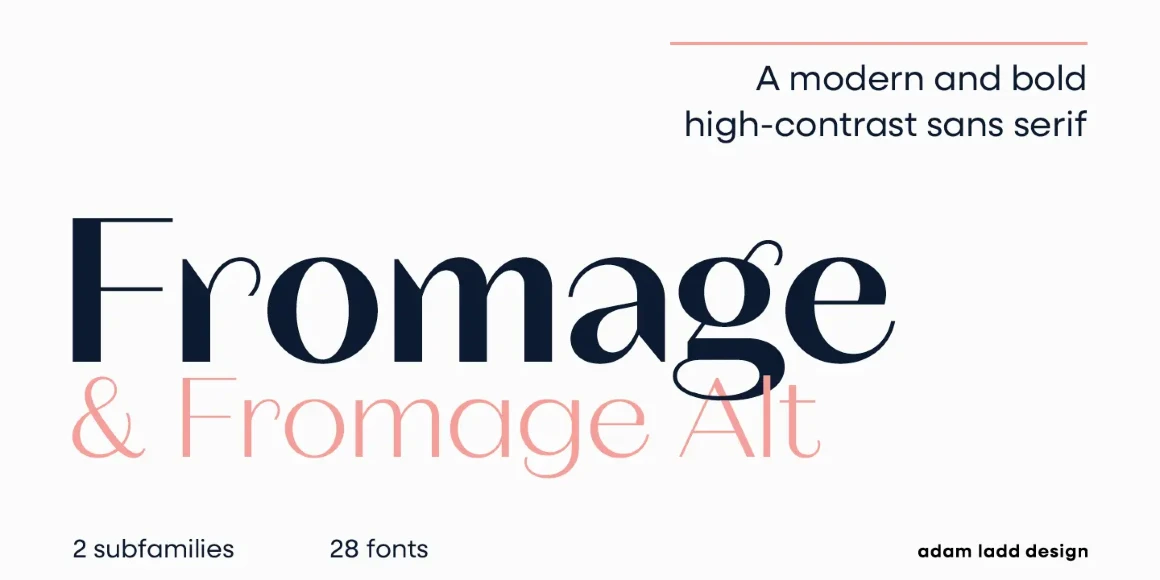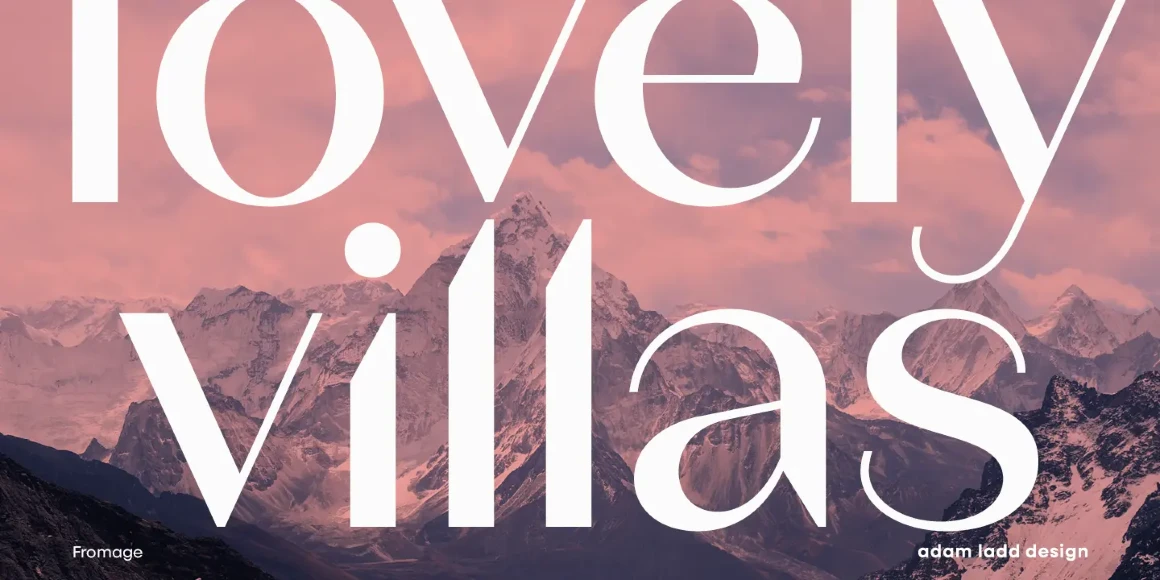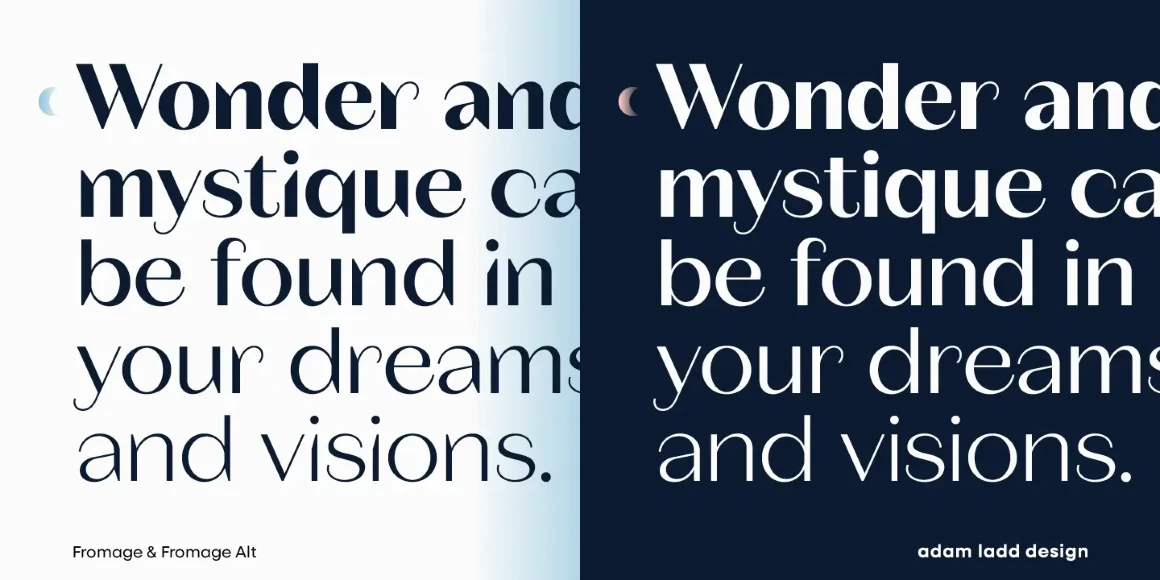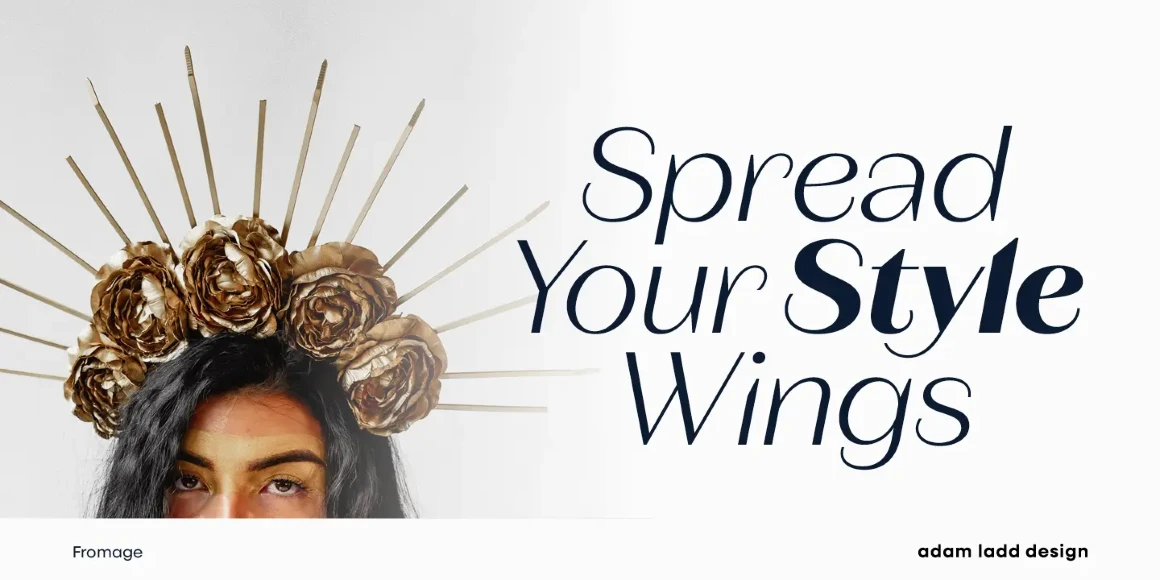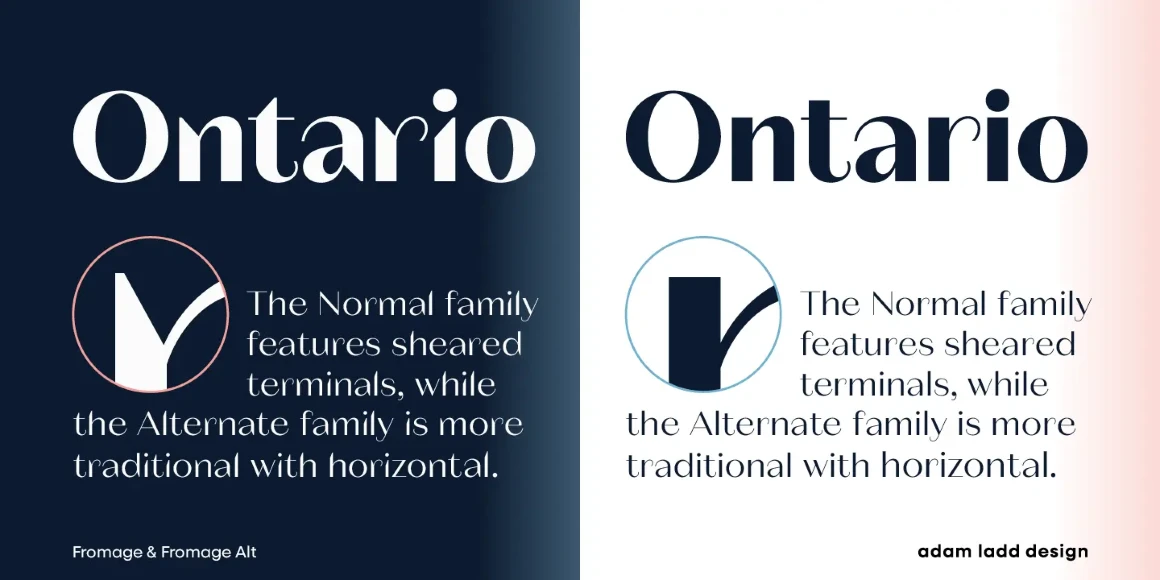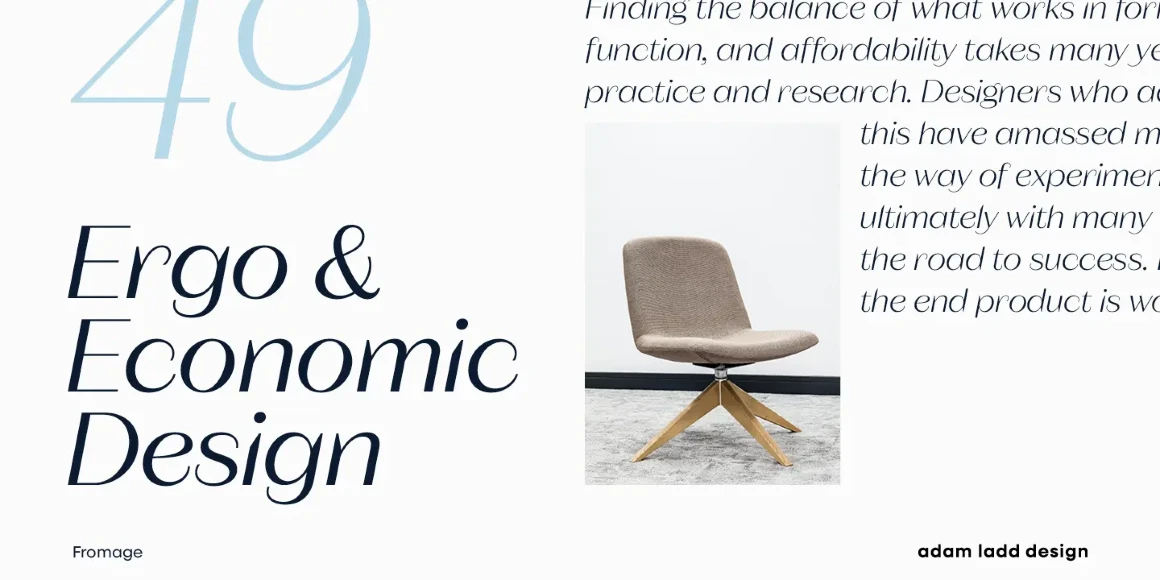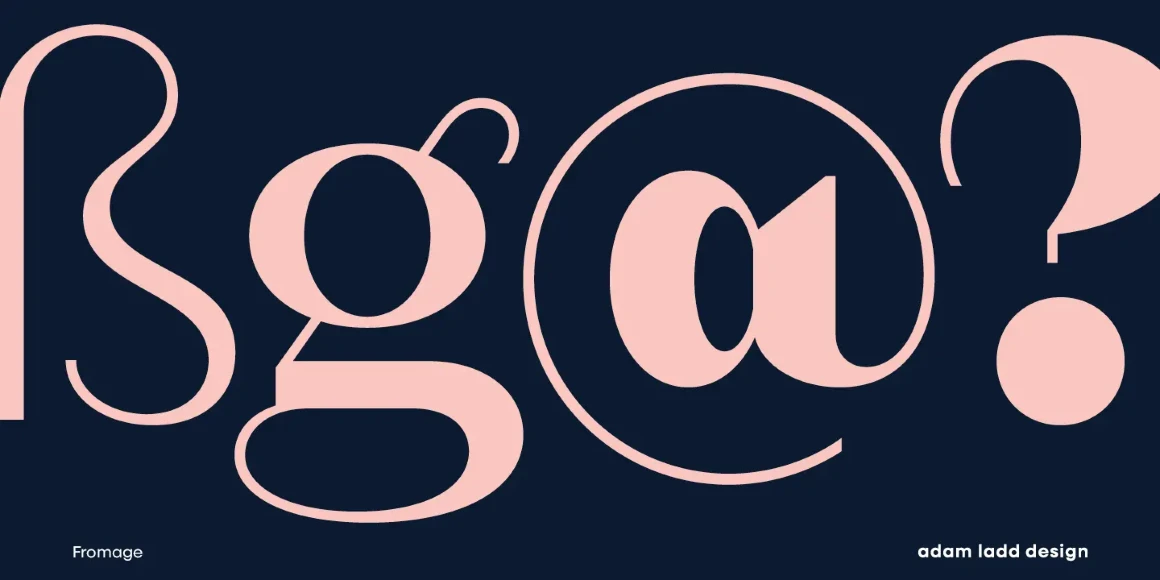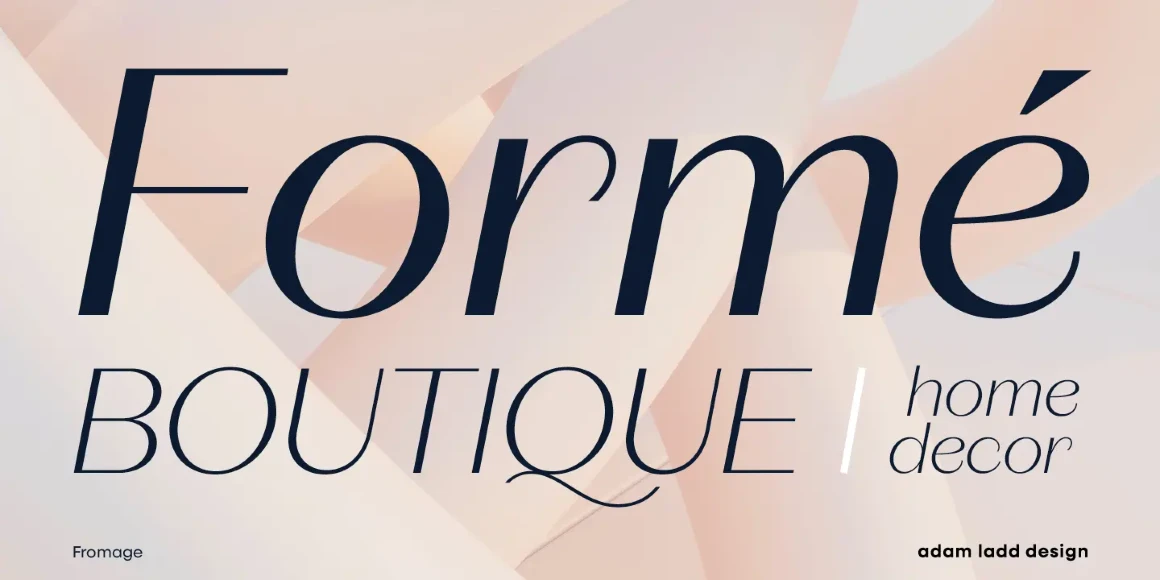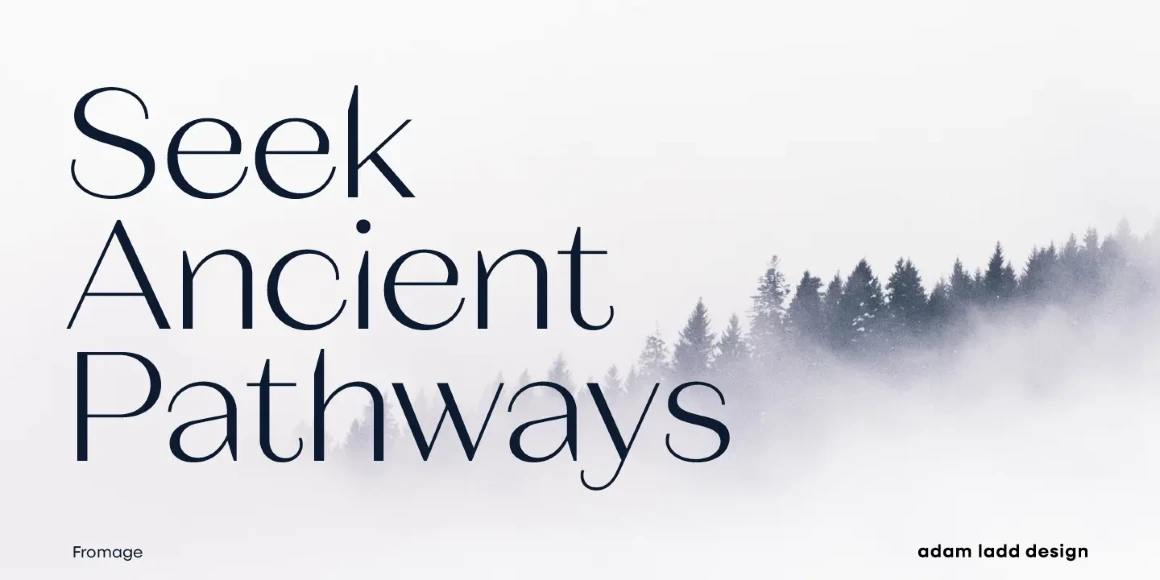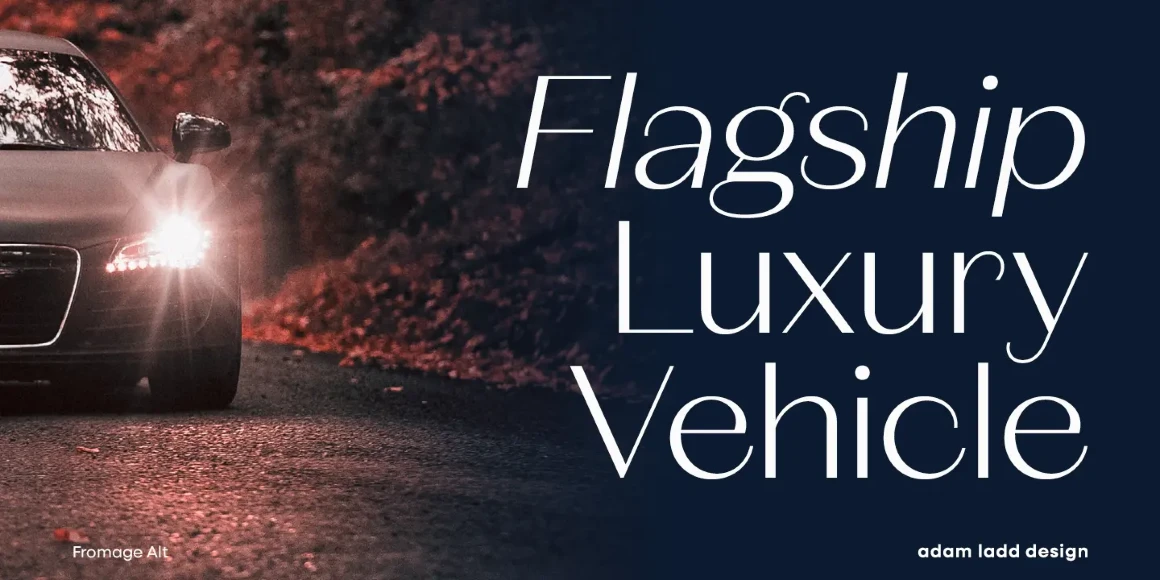
Fromage Alt
From Adam Ladd Design
Fromage and Fromage Alt are modern, high-contrast sans serif typefaces that balance the unexpected with restraint. Designed with Adam’s signature style, an elegant air and a dynamic rhythm make them an obvious choice for fashion, beauty, and luxury branding. While all have a generous x-height and round forms, Fromage uses angled and elongated terminals, and Fromage Alt has flat terminals, making it more stately. Fromage and Fromage Alt have flexibility and legibility for diverse applications. Now with italics.
Designed by Adam Ladd